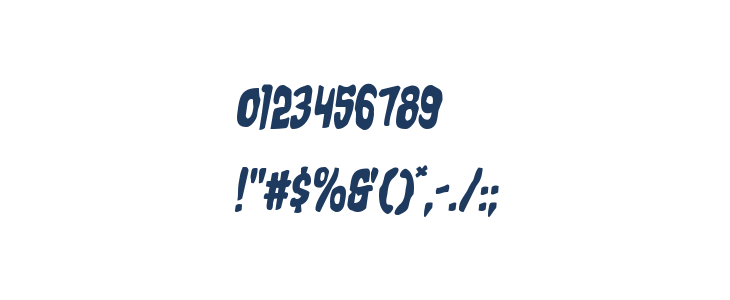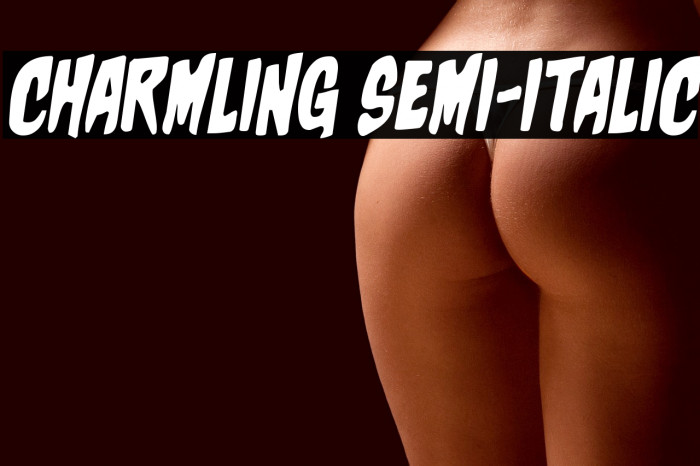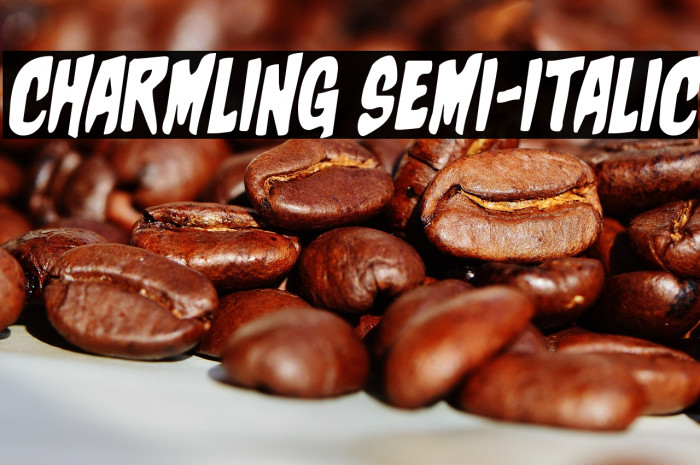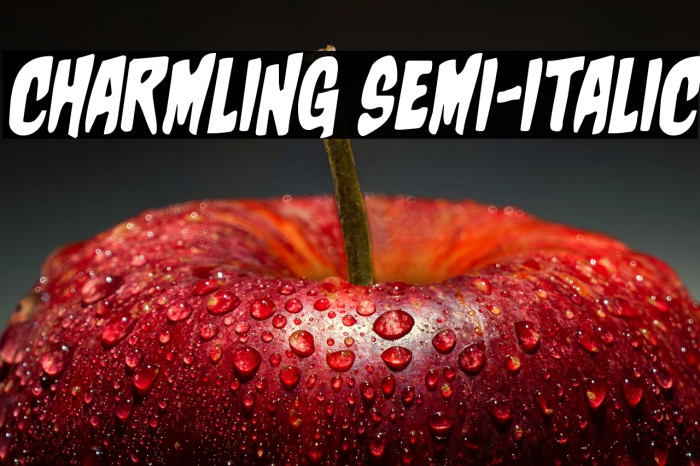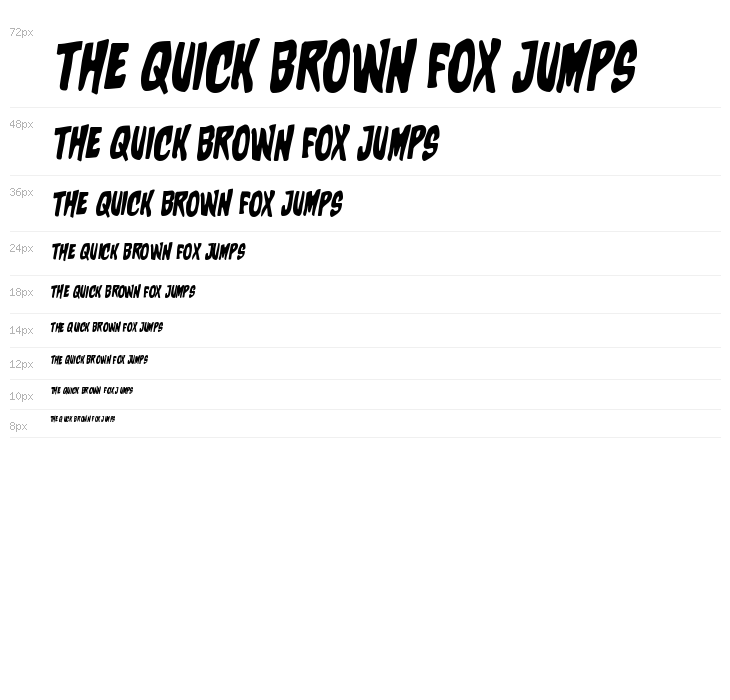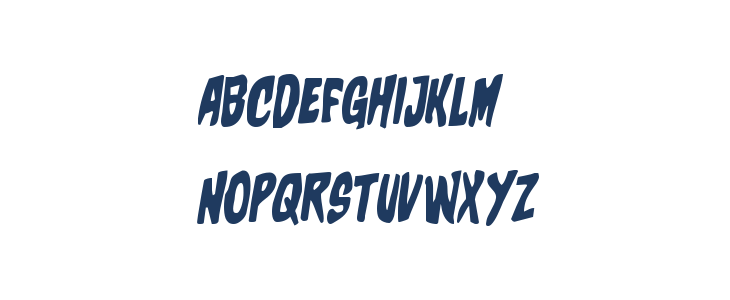
Charmling Semi-Italic Font
Charmling Semi-Italic Description
This font exhibits a bold and dynamic style with a semi-italic slant, giving it a sense of movement and energy. The characters are thick and robust, with a slightly condensed width that enhances its bold appearance. The uppercase and lowercase letters maintain a consistent style, with rounded edges and a playful, handwritten feel. The numbers and special characters are equally bold, ensuring uniformity across all glyphs. This font's high contrast in stroke thickness adds to its striking visual impact, making it ideal for attention-grabbing designs.
| Proposed Projects | Ideal for branding, posters, headlines, and any project needing a bold, energetic touch. |